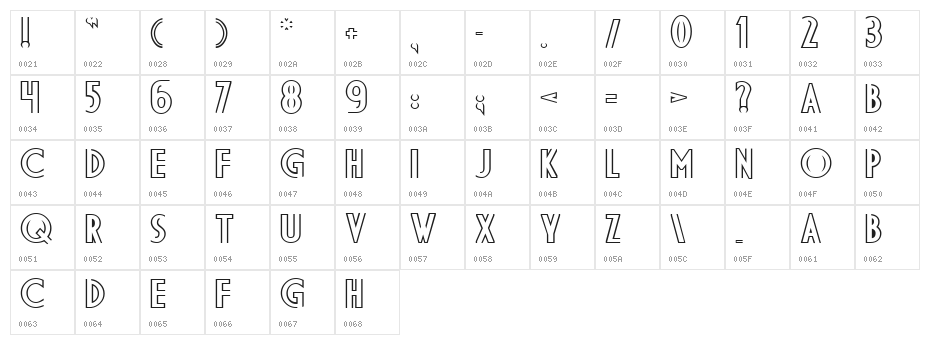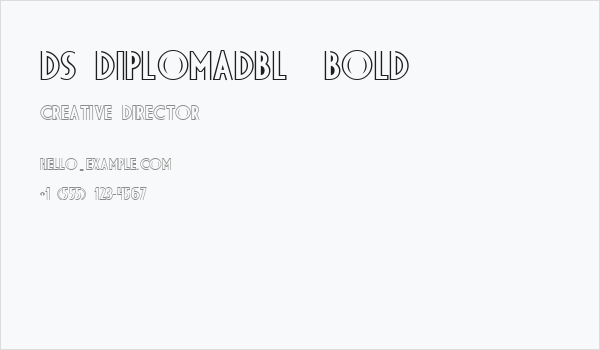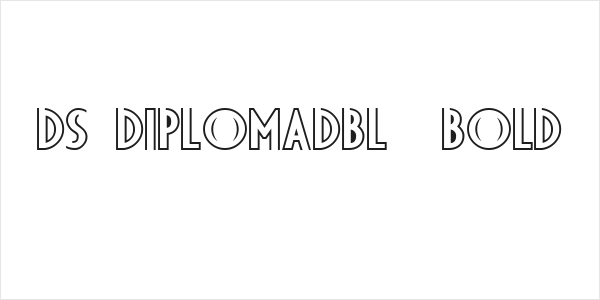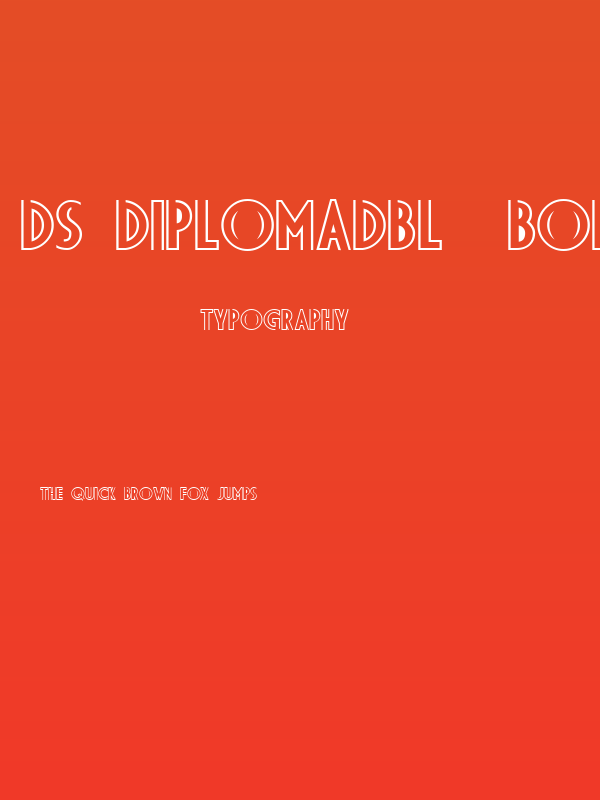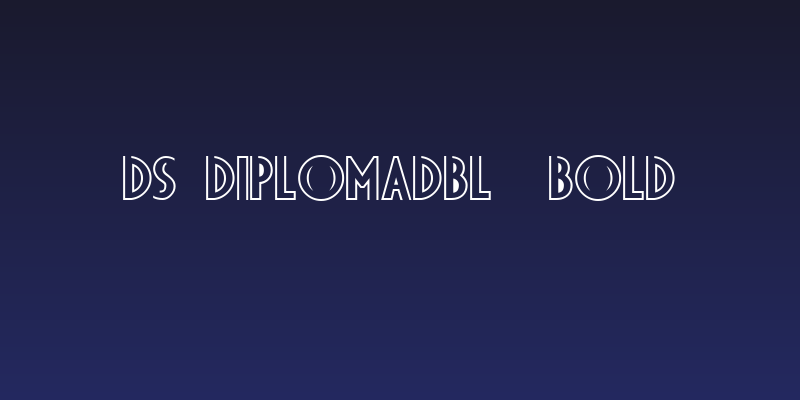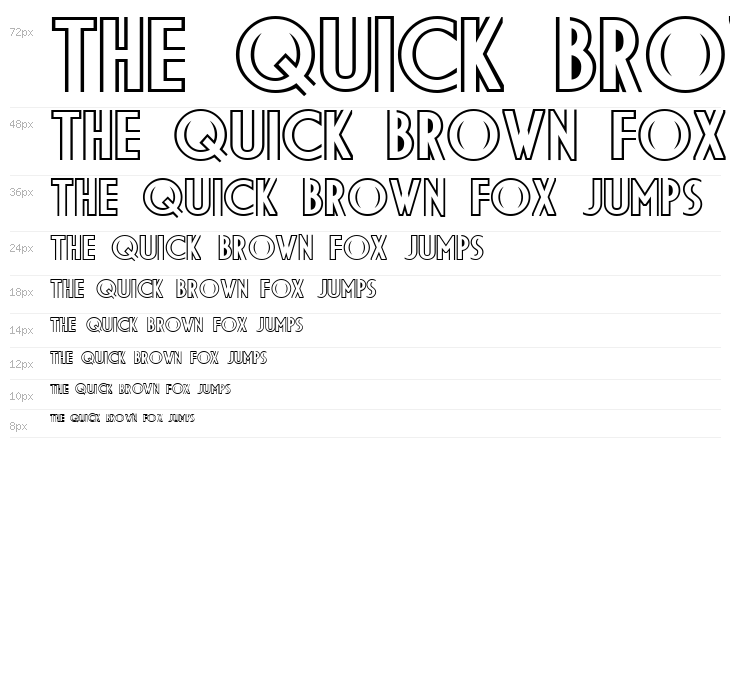
DS DiplomaDBL Bold Font
DS DiplomaDBL Bold Description
This font features a bold, geometric design with a strong emphasis on clean lines and sharp angles. The uppercase letters are characterized by their uniform stroke width, giving them a modern and structured appearance. The numerals and special characters maintain this geometric style, ensuring consistency across all glyphs. The font's design is both eye-catching and legible, making it suitable for various applications where a bold statement is desired. Its distinct style is reminiscent of Art Deco influences, with a contemporary twist that makes it versatile for modern use.